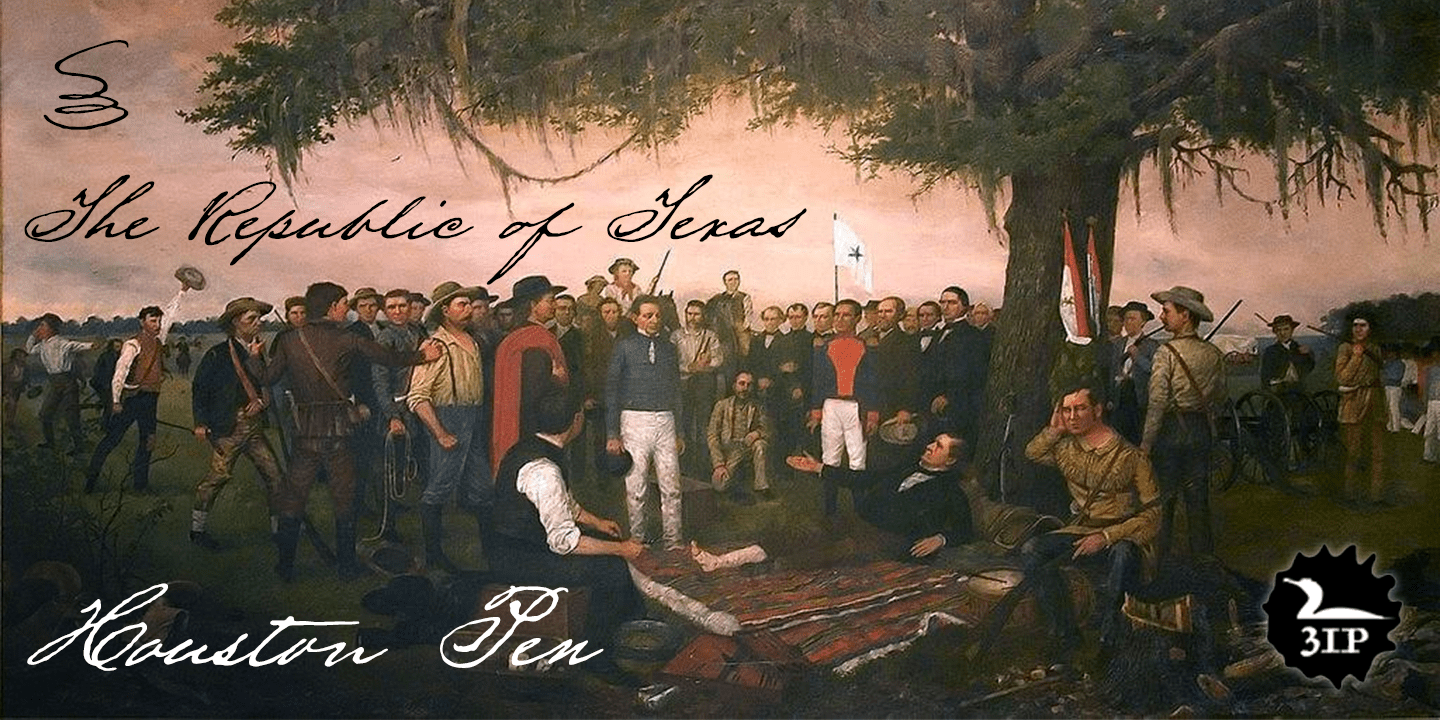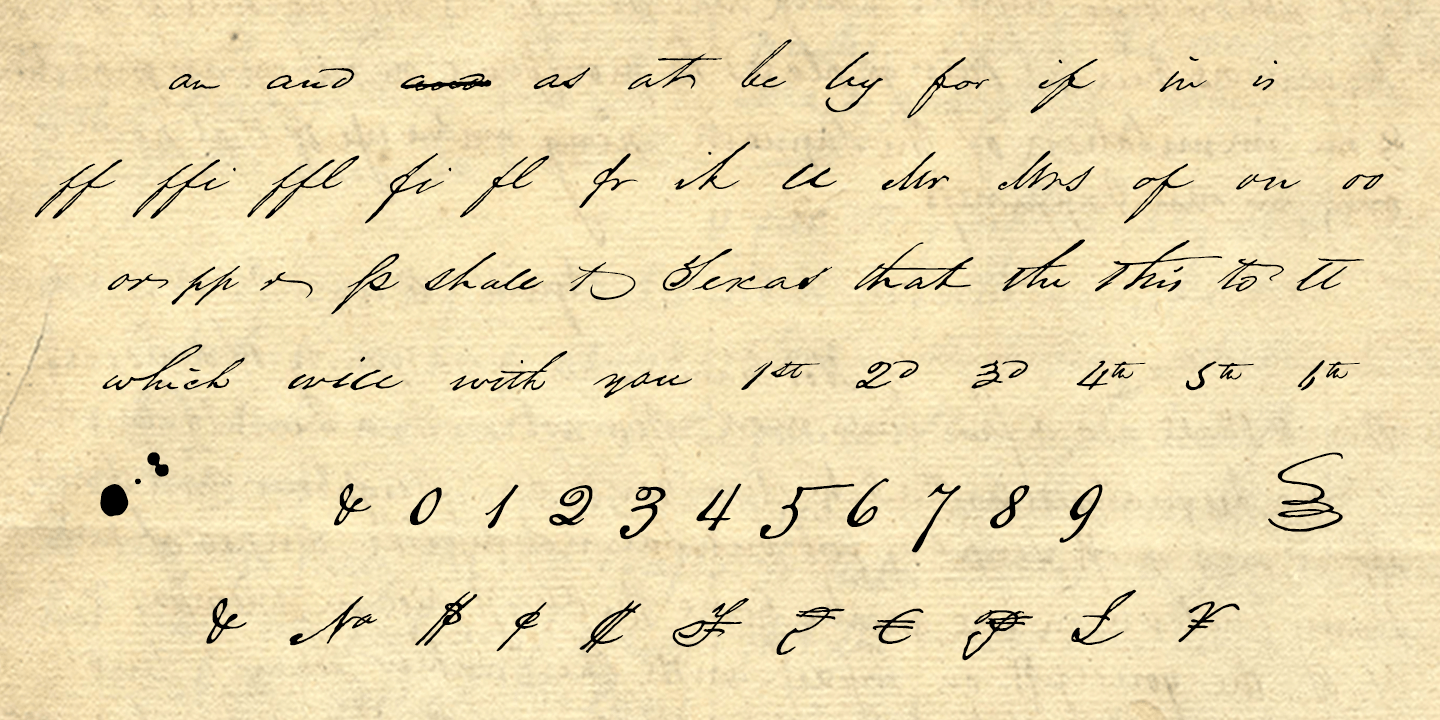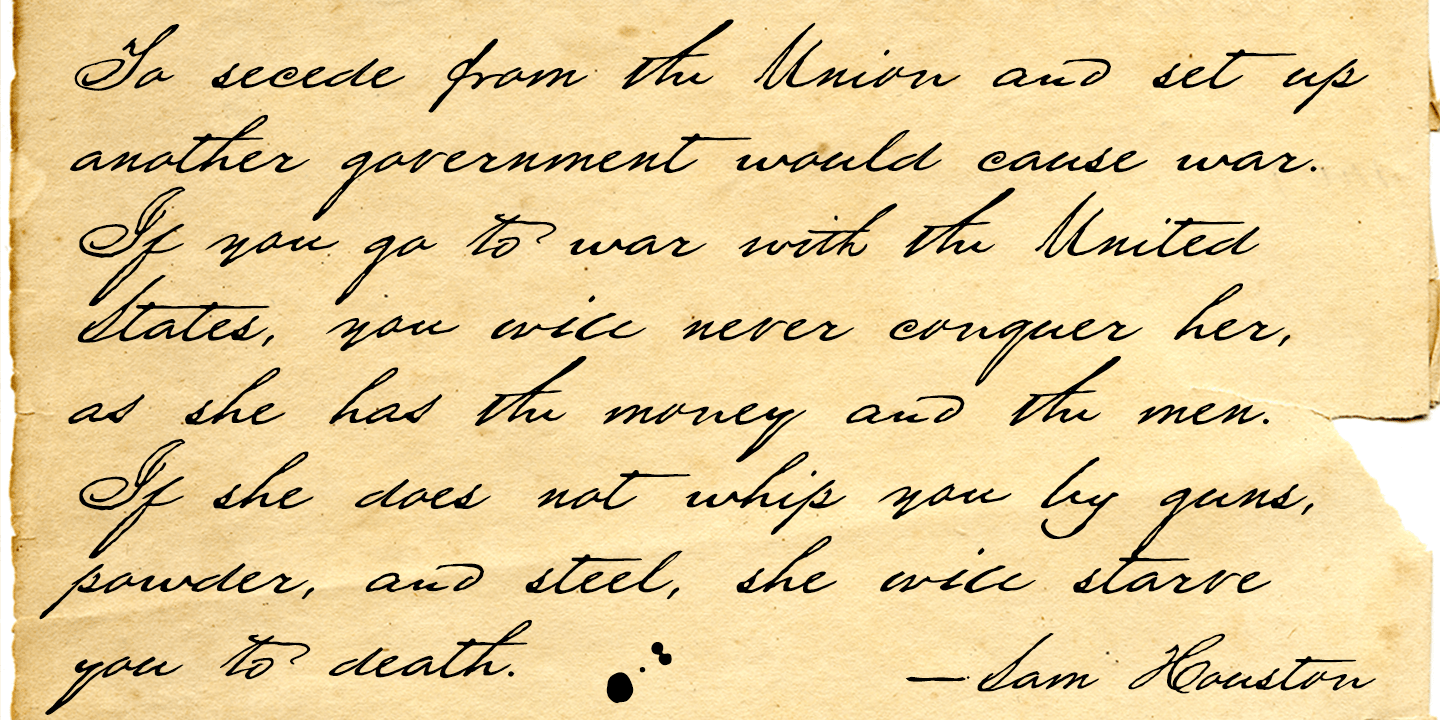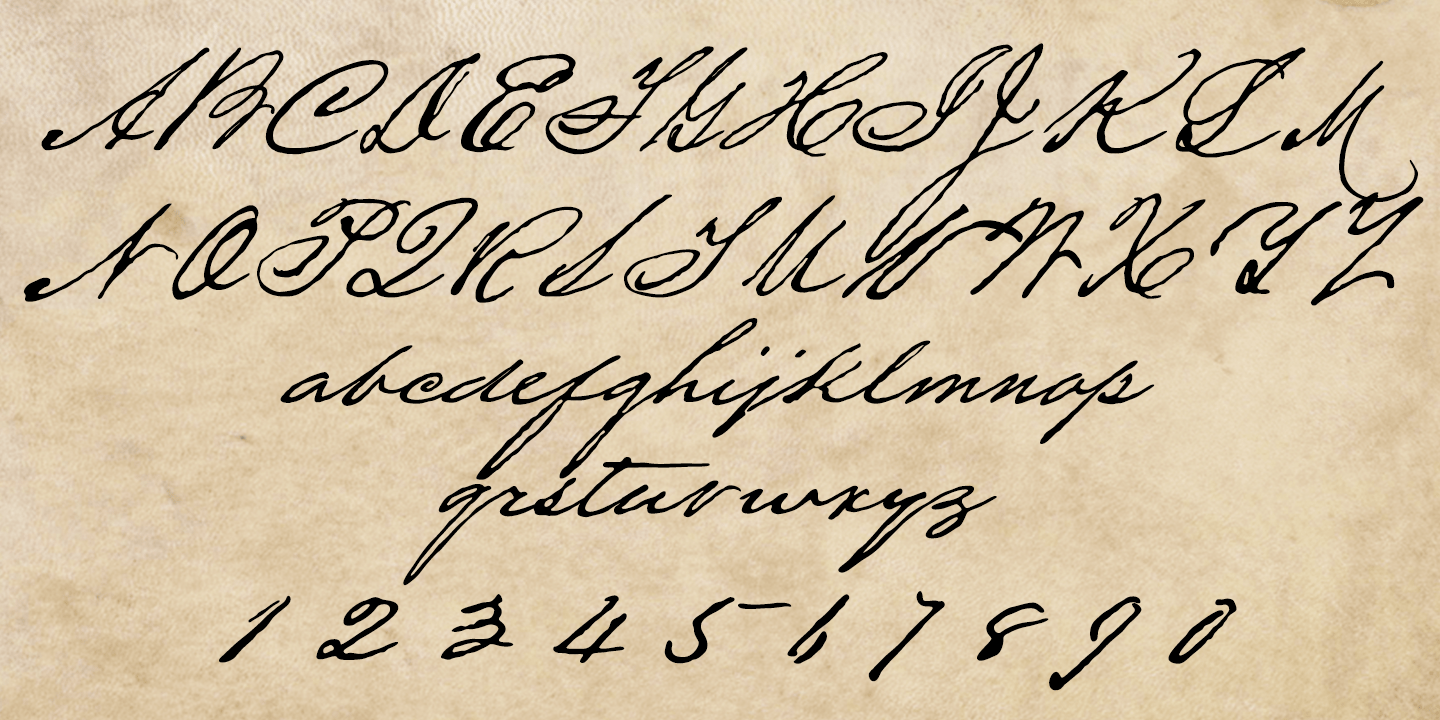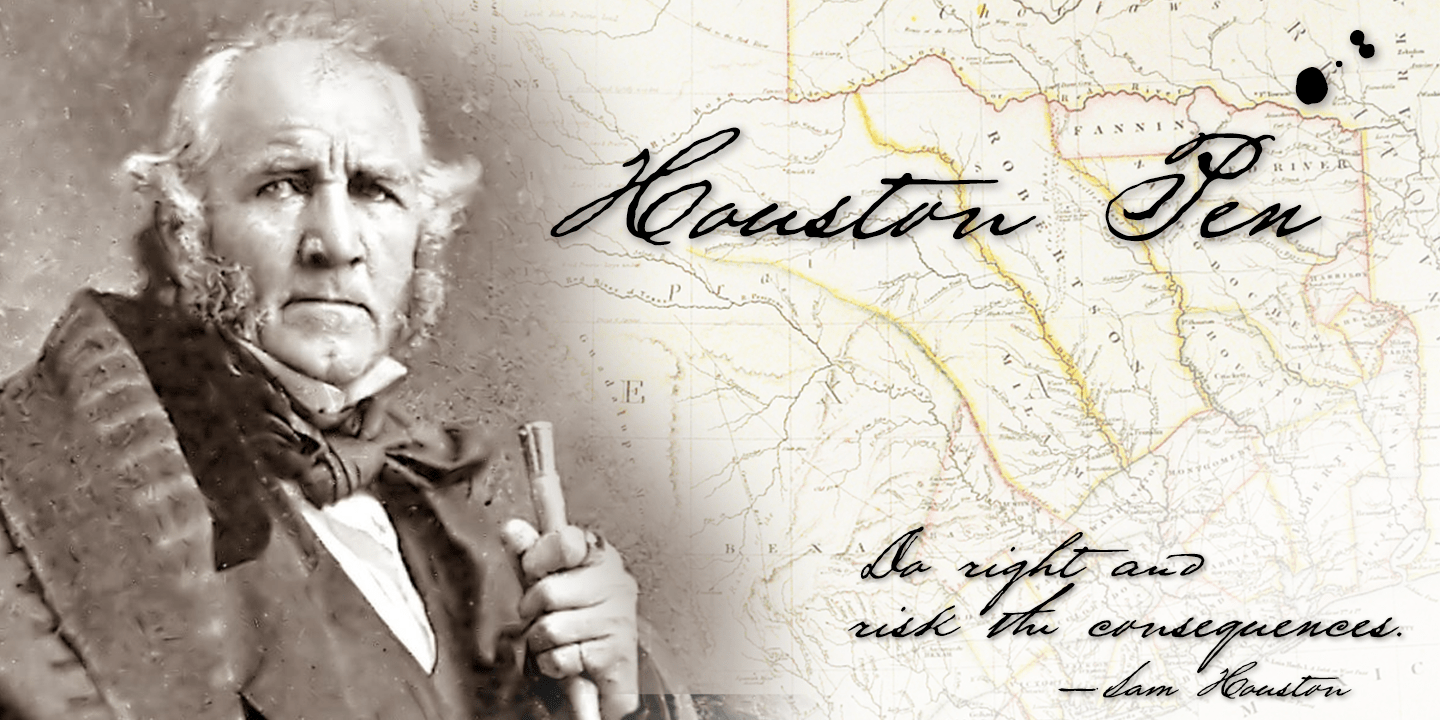
Houston Pen
Font Family by Three Islands Press
In researching Texas Hero years ago, I had occasion to pore over copies of letters by the likes of Stephen F. Austin, William B. Travis, Thomas J. Rusk, and others.
Austin's hand was pretty messy. Young, brave Travis wrote his last during the Alamo siege. Rusk's suited my original task. But a couple other styles caught my eye -- among them the bold yet graceful strokes of Sam Houston, the prototypical Texas Hero.
Houston Pen has a complete character set.